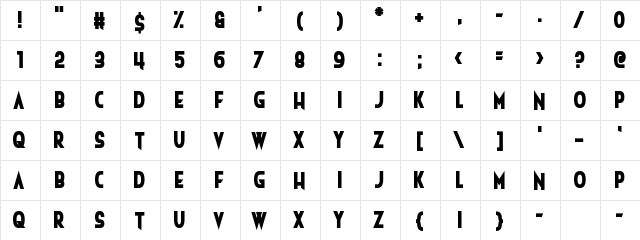
Ineptic Regular
| Designer | NAL |
Design Context for Ineptic Typeface
Ineptic takes a measured approach to typography — its balanced proportions and neutral character make it a reliable workhorse for both digital and print work.
Pro Tip: Pair Ineptic with a font of contrasting weight or personality to build a more expressive typographic hierarchy.